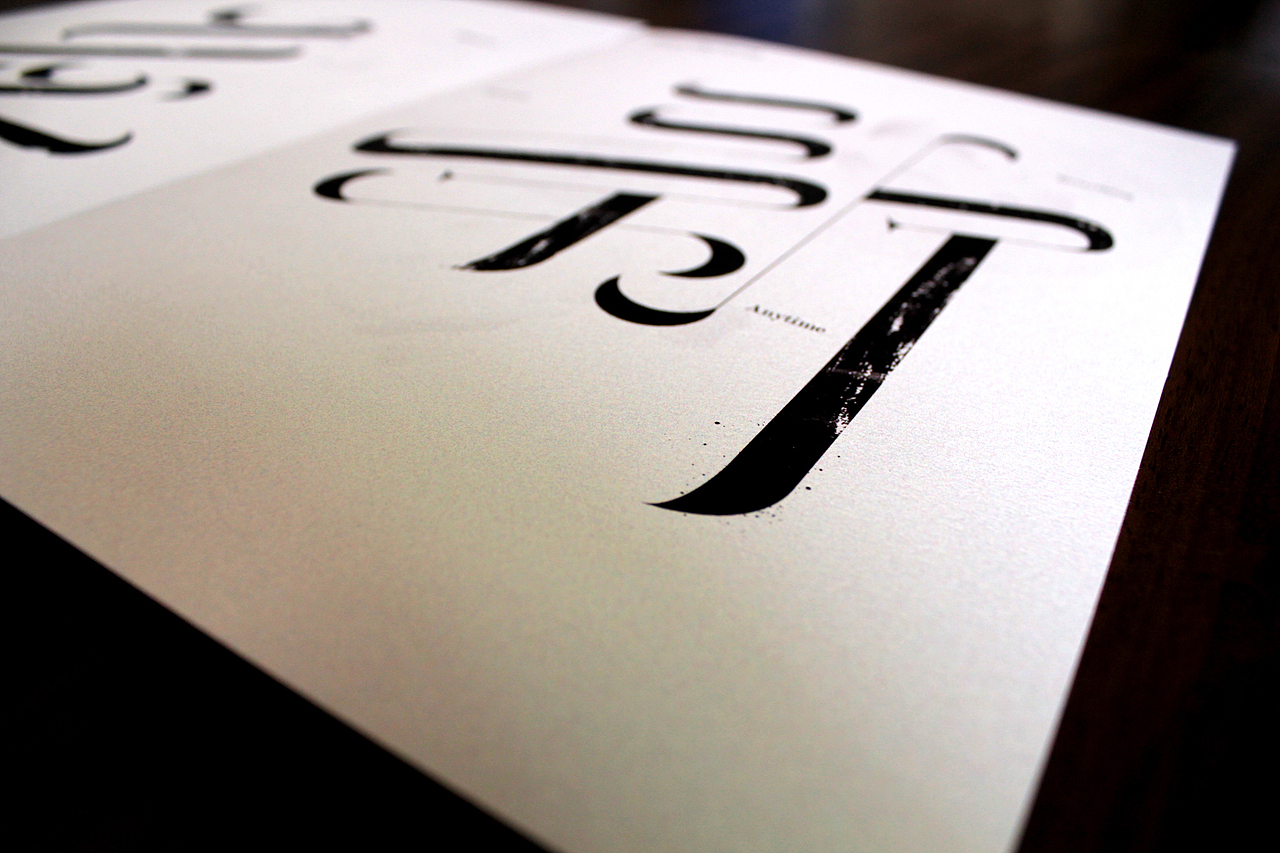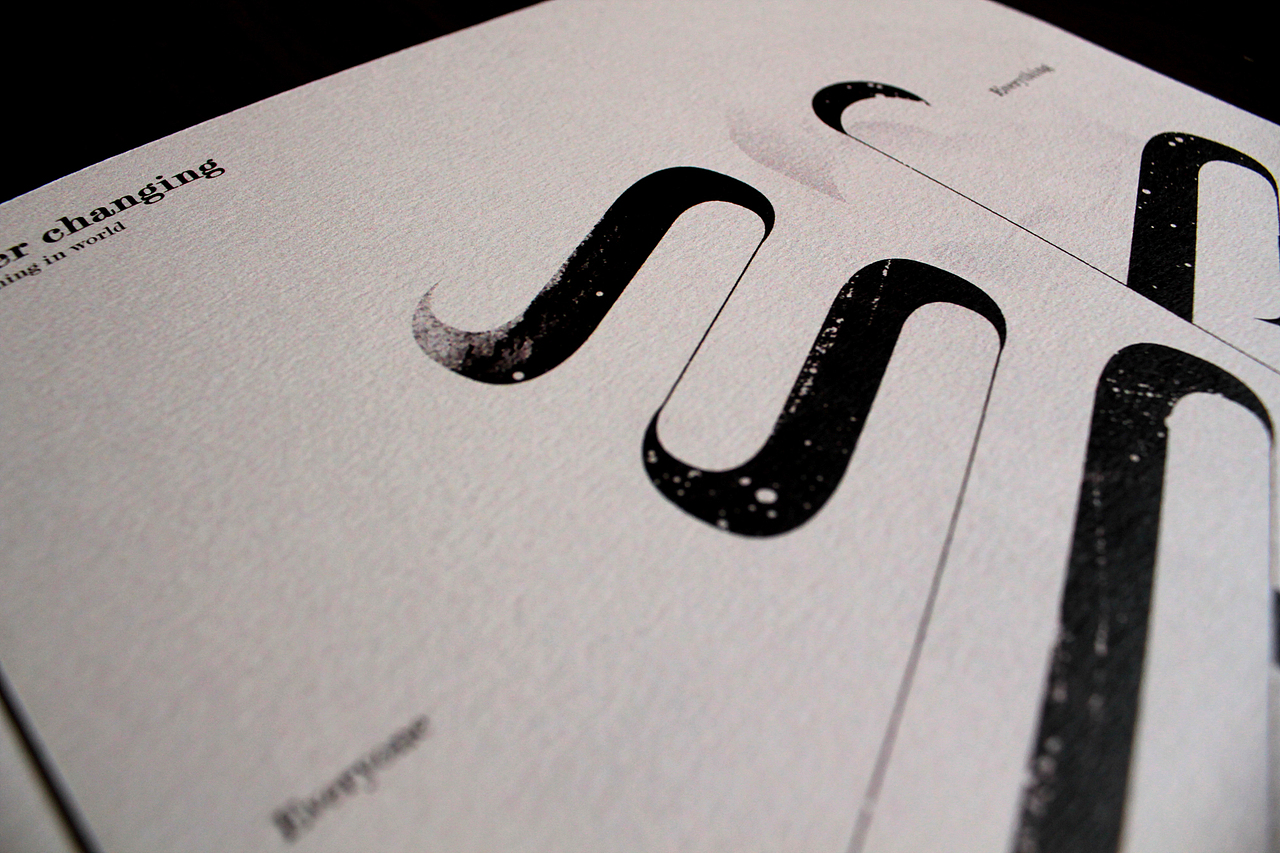
Art Flower and Ever changing
(Combined with concept of the Point and line to plane)
Art Flower
Interpretation flowers and art between of the typography design.
Ever changing
Chinese RI XIN YUE YI (ever changing) four text blend into the typography design.